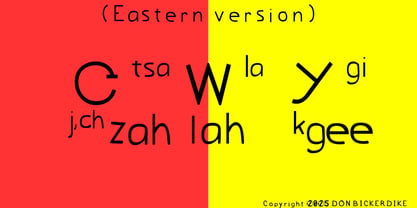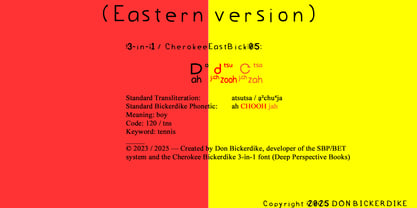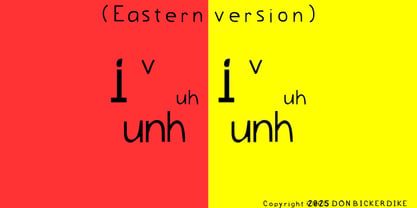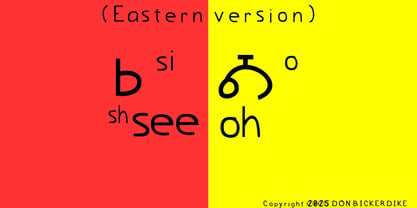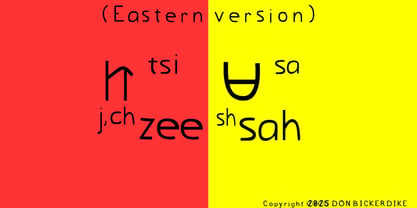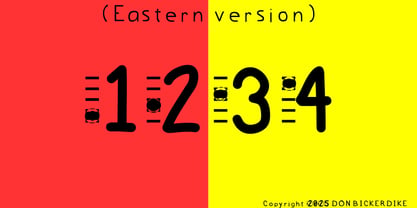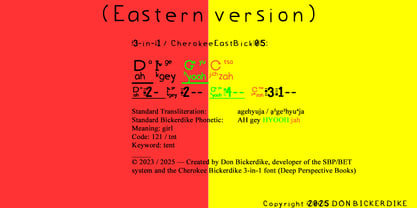
Cherokee East Bick 05
The Cherokee East Bick 05 Font Family was designed by Donald Bickerdike and published by Deep Perspective Books. Cherokee East Bick 05 contains 2 styles and family package options. More about this family
Introducing Cherokee East Bick 05 (Regular and Bold) Note: the “East” represents the “Eastern” dialect variations used in this font version. This Eastern version includes the z phonetic representation (the t or d plus the s or z affricate) with an alternate j, ch option for all of the ts syllabary characters, includes the superscript uh along with the nasal unh for the v syllabary character, and includes the sh superscript along with the s syllabary character. The Cherokee East Bick 05 (Regular and Bold) is an innovative and revolutionary font designed to empower learners and speakers of the Cherokee language. It's a comprehensive educational tool that goes beyond a simple typeface, integrating three critical elements into each character to create an intuitive learning aid. (The Bold version applies the bold style to the numbers and punctuation only.) Each unique character provides a complete phonetic guide: • A large, clear syllabary character occupies the upper-left, serving as the primary visual representation of the syllable. • Directly below is the Standard Bickerdike Phonetic / SBP (previously referenced as the Bickerdike Extended Transliteration / B.E.T.), a custom phonetic system engineered for precision and consistency. For specific syllables, the SBP /B.E.T. also includes a smaller, alternate consonant character to clarify subtle sound variations. • To the right of the syllabary is the Standard Transliteration, offering a familiar reference for learners to check their understanding against conventional transliteration systems. Unique Features for Enhanced Learning This font also includes uniquely designed numerals, crafted to visually represent the phonetic tones of the Cherokee language, much like notes on a music score. • Numbers 1, 2, and 3 are each uniquely styled to represent their respective tone levels. • The number "4" is represented by a grave accent character (  ̀ ), providing a comprehensive and intuitive system for understanding and reproducing the phonetic tones of the language. For added clarity in syllable structure, the double quotation (") has been reassigned to type a hyphen (-). This allows the single apostrophe to be used to show a glottal stop. This unique feature helps users visually distinguish between single-keystroke syllable durations which are shorter (-) and double-keystroke syllable durations which are longer (--). This is a custom solution, as the Cherokee language does not require the use of a single apostrophe. All elements included in this font (the phonetic system, the unique number designs, and the custom punctuation usage) were created and copyrighted in 2023. These designs are featured in the original published eBook on the Cherokee language, Revolutionary Cherokee: What You See Is What You Say by font creator Don Bickerdike. For large-scale and enterprise licensing, including unlimited user licenses or for use by governments and large organizations, please contact Monotype directly for a custom quote.